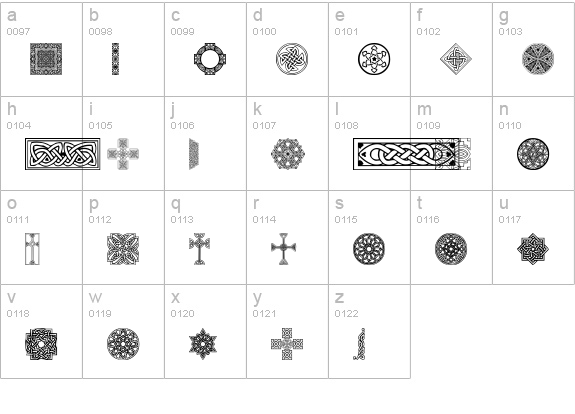
Celtic Elements V Font Details
Celtic Elements V font is a captivating and intricate typeface inspired by the rich cultural heritage of Celtic art and design. This font features beautifully crafted patterns and motifs that evoke a sense of ancient mystique and timeless elegance. With its unique blend of traditional Celtic elements and modern typography, Celtic Elements V font adds a touch of sophistication to any project. Best of all, Celtic Elements V font is available for free download at FontsMarket.com. Whether you're designing a logo, creating a poster, or crafting a piece of digital art, this font is sure to make a lasting impression. Embrace the magic of Celtic design with Celtic Elements V font and bring a touch of Celtic charm to your next creative endeavor.